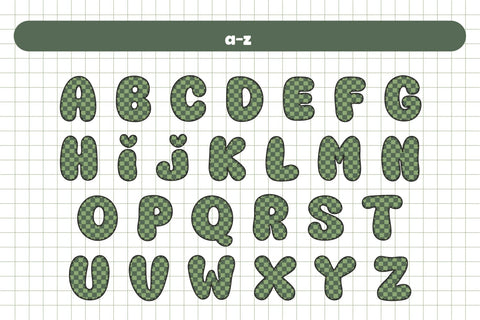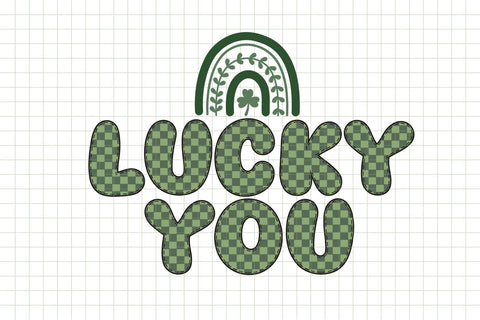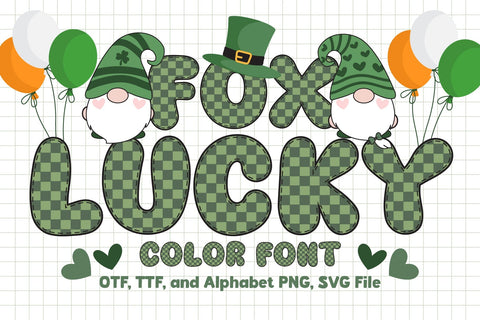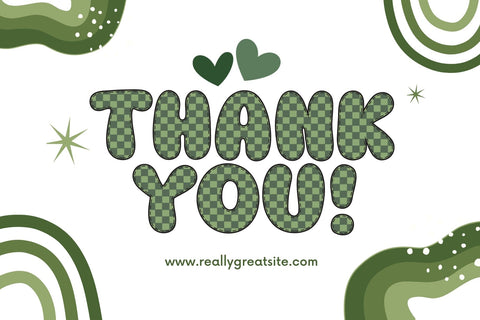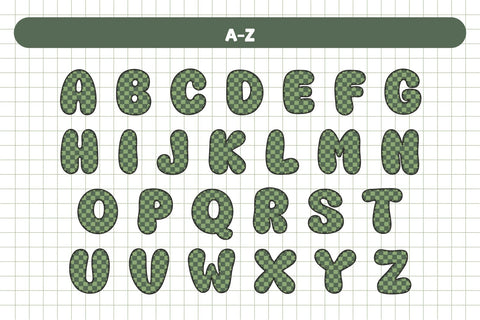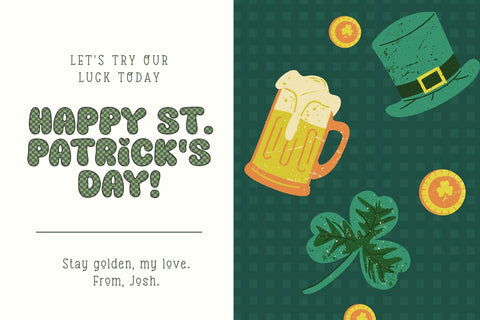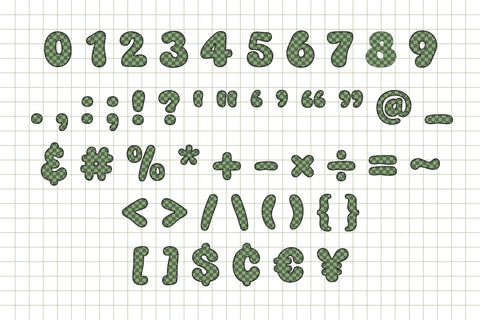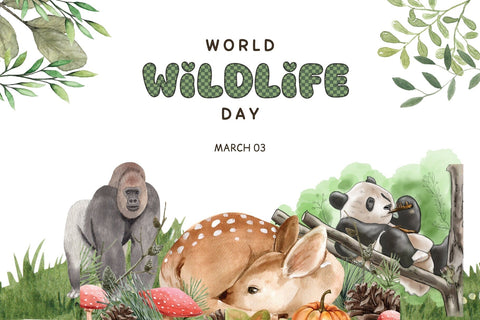
Fox Lucky Color Font
Fox Lucky is a fun and cool color font. It's a green plaid pattern that goes well with designs for St Patrick's Day and others. Fall in love with its authentic feel and use it to create gorgeous invitations, beautiful stationary art, eye-catching social media posts, and cute greeting cards.